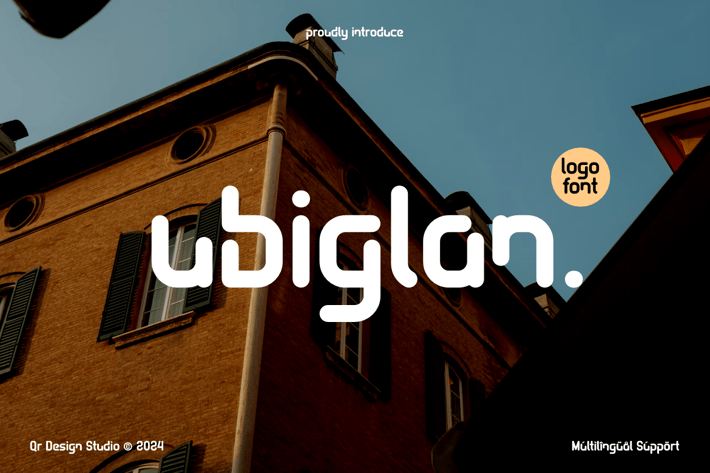
Ubiglan - Sans Modern Logo Font
Ubiglan Font is a sans serif and logo font.
The font is suitable for any branding project like stylish, poster, logo, sport, and many more.
Main Features
+ Uppercase & Lowercase
+ Ligatures & Alternate
+ Numeral & Punctuations
+ Multilingual Support
+ Extended Character Set